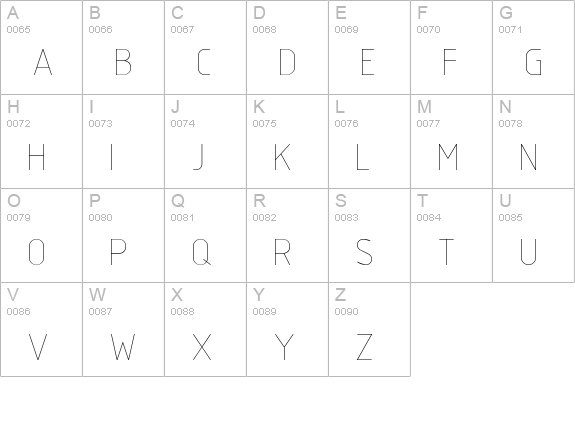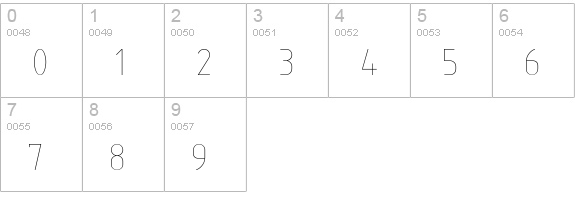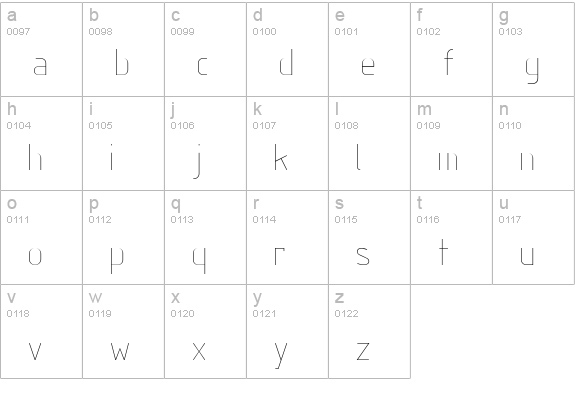
ISOCP3 Font Details
ISOCP3 is a versatile and beautifully designed font that effortlessly captures attention with its modern and sleek aesthetic. This striking font is perfect for a wide range of creative projects, from branding and advertising to website design and print materials. What sets ISOCP3 apart is not only its stunning appearance but also its accessibility. This font is available for free, allowing designers and enthusiasts alike to easily incorporate it into their work without any financial constraints. You can freely download ISOCP3 at FontsMarket.com, a trusted source for high-quality fonts. With its clean lines and balanced proportions, ISOCP3 exudes a sense of professionalism and sophistication. The carefully crafted letterforms make for excellent readability, ensuring that your message is conveyed with clarity and impact. Whether used in headlines, body text, or as a standout element in a design composition, ISOCP3 adds a touch of elegance and modernity. The versatility of ISOCP3 is further enhanced by its extensive character set, which includes uppercase letters, lowercase letters, numbers, punctuation marks, and special characters. This font offers the flexibility to adapt to various design needs, enabling you to create unique and memorable visual experiences. ISOCP3 is a true gem in the world of typography, offering both aesthetic appeal and accessibility. Its availability as a free download from FontsMarket.com makes it an invaluable resource for designers, students, and anyone seeking to enhance their projects with a touch of contemporary flair. Discover the endless possibilities that ISOCP3 brings to your designs and let your creativity soar.